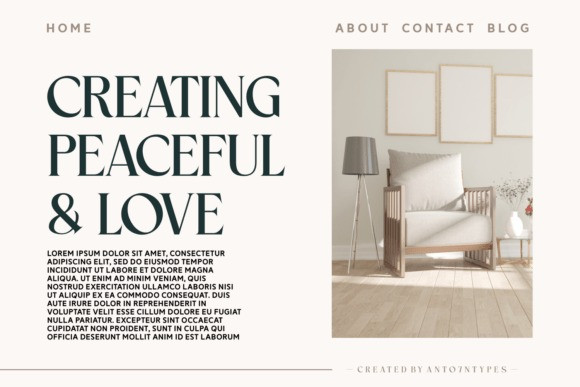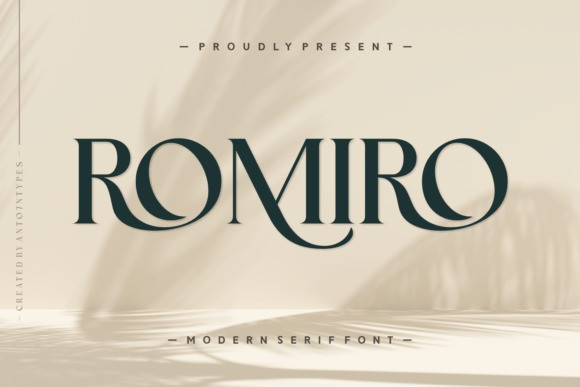
Romiro Font
Romiro Font, a serif font that seamlessly merges elegance and modernity. This versatile font perfectly complements photographic captures and accents any design layout. Romiro brings authenticity to apparel and book cover designs, making itself indispensable in branding. It carries a clean and rounded aesthetic, ideal for designing cards, magazine layouts, and packaging. As a greeting card or logotype font, Romiro makes a bold statement. Whether it’s on a t-shirt or a quote, its smooth strokes and trendy appeal are conspicuous. Add a touch of finesse with its ligatures and swashes, and cater to a global audience with its multilingual support. Romiro is not just a font, it’s a testament to style and versatility.